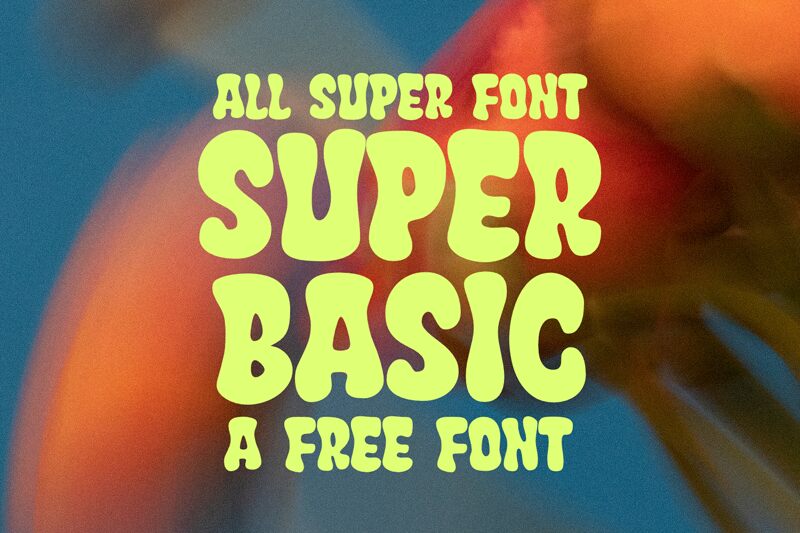
Super Basic
Super Basic font by fsuarez913 is a groovy typeface with a bold, condensed design that draws inspiration from retro styles. Display and bubbly in its appearance, the letters use curved shapes to create a casual and friendly aesthetic characterized by 1970s influence. This free display font offers an easy design experience, allowing users to immediately enjoy its stylish presence.
Fit your modern branding ideas using Super Basic for logos, titles, or packaging designs. That’s not all as it can also be included in labels for music albums and beverages, posters, cards of all sorts (birthday invitations included), stickers, websites & social media platforms – basically any playful project that comes to mind!